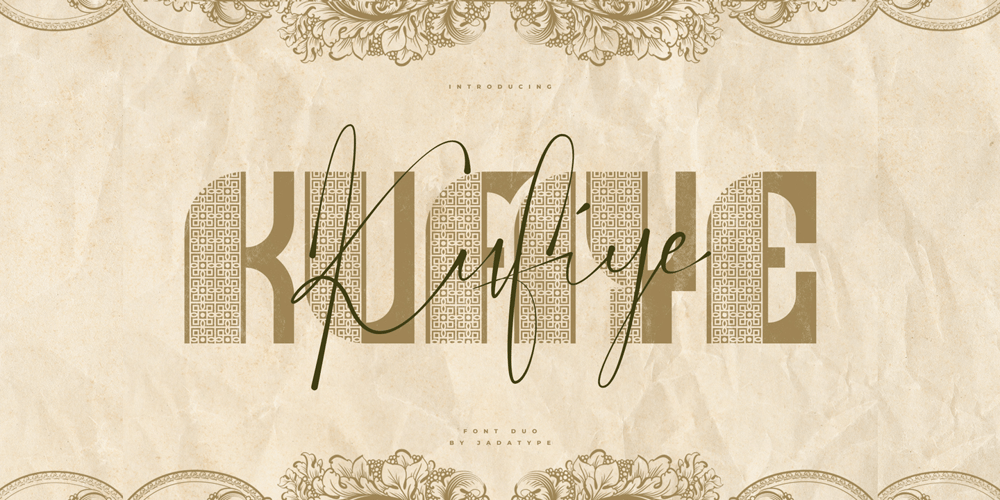
Kufiye Font Family was designed by Jada Akbal and published by Jadatype. Kufiye contains 2 styles and family package options. Kufiye is a Font duo font that has Script & Decorative Style. Suitable for product, Branding, social media, logotype and so on. contains standard English letters, numbers, punctuation, and several accents that support multilingualism.